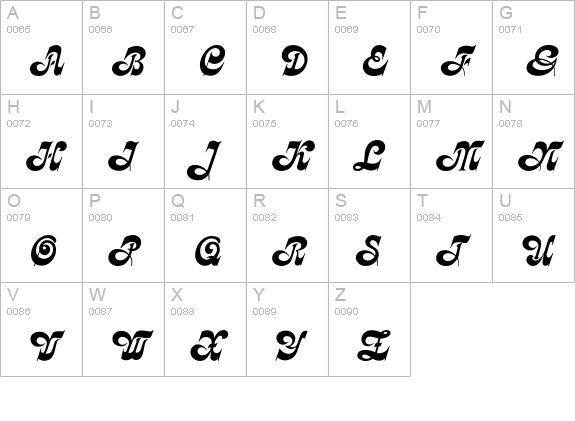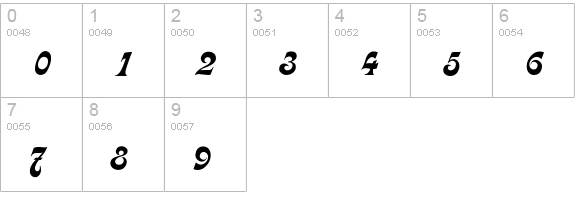
Calligraphia Font Details
Calligraphia font is a stunning display typeface that exudes elegance and sophistication. Its intricate strokes and flowing lines make it perfect for adding a touch of refinement to your designs. Whether you are creating wedding invitations, branding materials, or artistic projects, Calligraphia font will elevate your work to the next level. The beauty of Calligraphia font lies in its versatility - you can use it for both formal and informal purposes, making it a truly versatile typeface. Its classic yet modern style appeals to a wide range of audiences, making it a popular choice among designers and creatives. What's even better is that Calligraphia font is free to download at FontsMarket.com. This means you can access this gorgeous typeface without any cost, allowing you to bring your creative vision to life without breaking the bank. So why wait? Download Calligraphia font today and add a touch of sophistication to your designs.